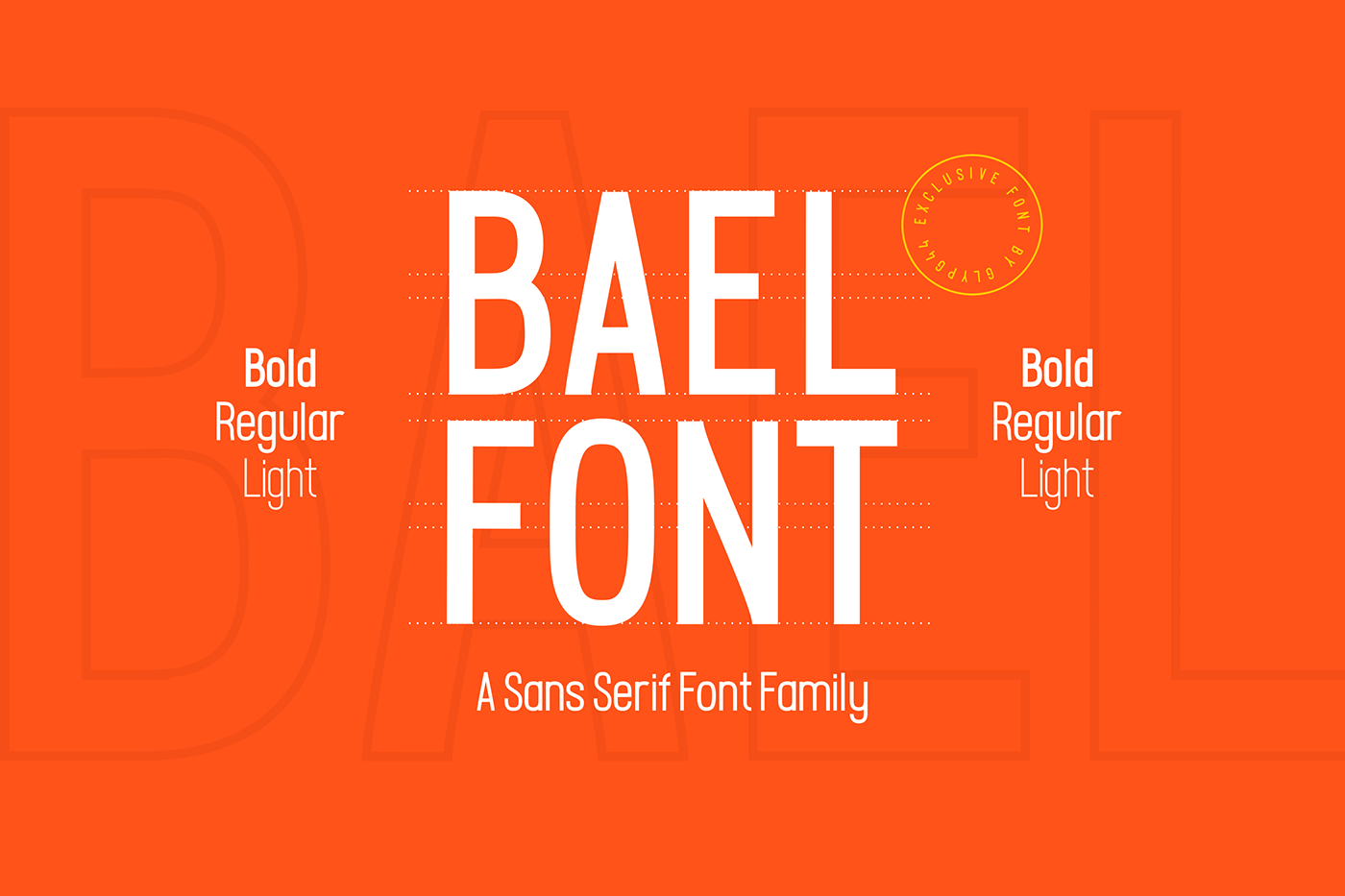
BAEL FONT is a sans serif font family inspired by simple geometric structures and calls back to the origins of early DIN style lettering from the 1920s. It is most suited as a headline font for editorials, packaging design and websites. It has a uppercase and lowercase display with over 100 unique characters, numerals & glyphs in three different weights.